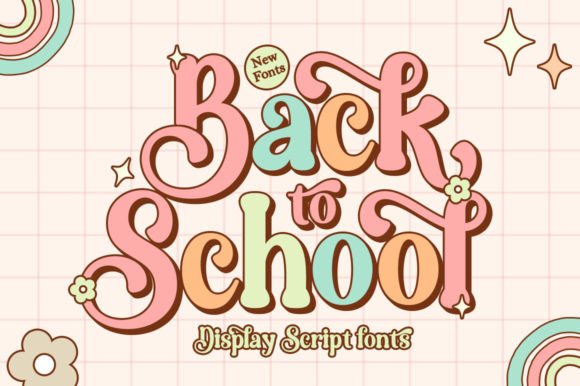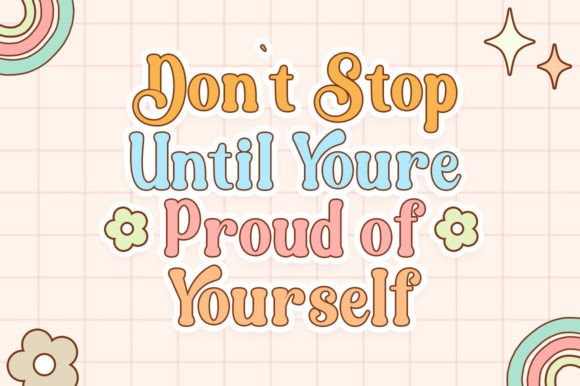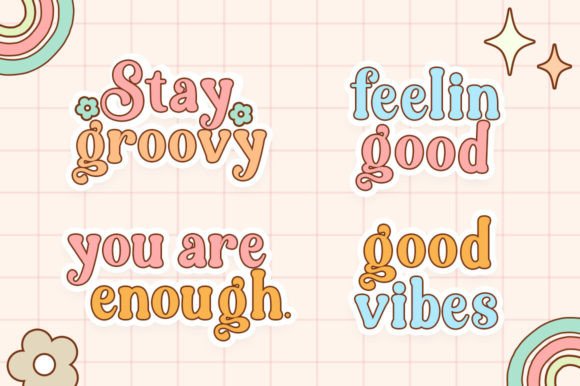
About the Back to School Font
Experience the unique personality of Back to School Font, a font designed for impact. Back To School is cool, retro and fun display font. This font is PUA encoded which means you can access all of the glyphs and alternates with ease! It will look great on headlines, magazines, logos, branding and so much more!
Back to School Font Usage Examples
Back to School Font Example